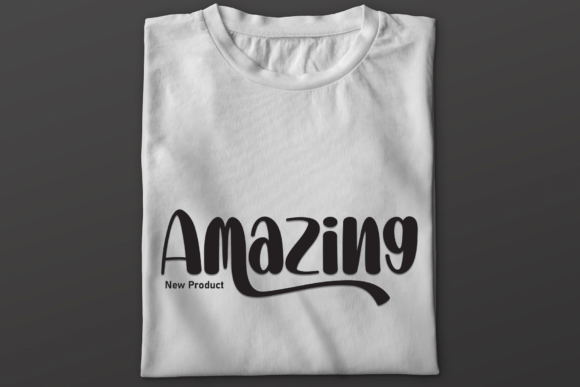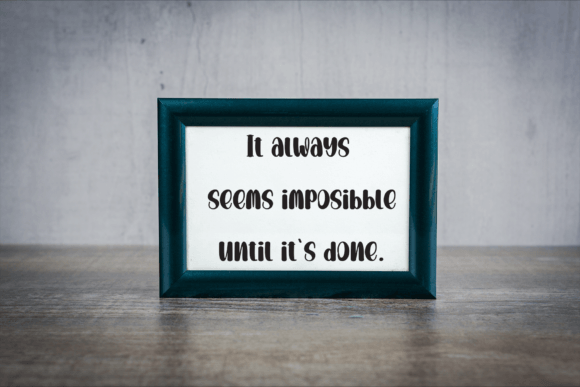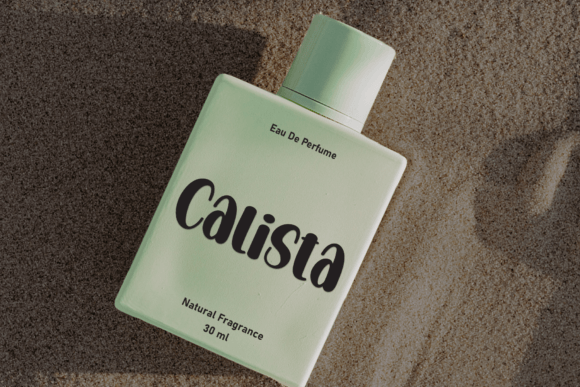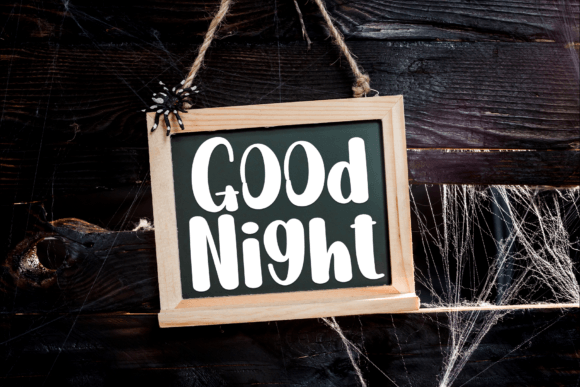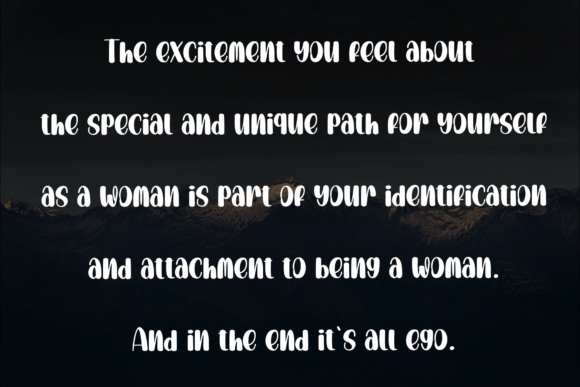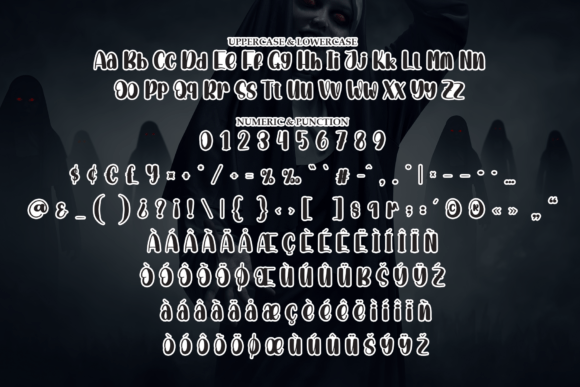
Unleash the Elegance: Exploring the Ghost Vampire Font
In the realm of typography, certain fonts stand out for their unique ability to evoke emotions and add a touch of sophistication to any creative project. The Ghost Vampire Font is one such marvel, designed to bring a romantic and exquisite feel to a wide array of applications. From greeting cards to headlines, and many more, this versatile and stylish font is set to become your go-to choice for projects that demand a bit of elegance and a lot of character.
The Essence of Ghost Vampire Font
Ghost Vampire is not just a font; it’s an experience. It combines the mystique of the night with the romance of the written word, making it perfect for designers and crafters looking to add a unique touch to their creations. Whether you’re working on a project that requires a spooky vibe or something more traditionally romantic, this font adapts seamlessly, ensuring your work stands out.
One of the key features of the Ghost Vampire Font is its incredible versatility. It’s designed to work beautifully across various platforms and applications. Here are a few ways you can incorporate it into your projects:
- Greeting Cards: Add a touch of elegance to your greeting cards, making them perfect for special occasions like weddings, anniversaries, or even Halloween.
- Headlines: Use it to create eye-catching headlines for your blog posts, articles, or advertising materials that demand attention and exude style.
- Social Media Graphics: Elevate your social media presence with stylish graphics that incorporate the Ghost Vampire Font, making your posts stand out in crowded feeds.
- Invitations and Event Materials: Create memorable invitations and event materials that set the tone for a sophisticated and unique experience.
Why Choose Ghost Vampire Font?
Choosing the right font for your project can be daunting, but here are a few reasons why Ghost Vampire should be at the top of your list:
- Romantic and Exquisite Feel: It adds a touch of romance and elegance to any project, making it perfect for a wide range of applications.
- High Readability: Despite its stylized nature, the Ghost Vampire Font maintains high readability, ensuring your message is conveyed clearly and effectively.
- Unique Aesthetic: It offers a unique aesthetic that can set your project apart from the rest, giving you a competitive edge.
Tips for Using Ghost Vampire Font
To make the most out of the Ghost Vampire Font, consider the following tips:
- Pair it Wisely: Experiment with font pairings to find the perfect complement to Ghost Vampire. A simple, sans-serif font can often provide a nice contrast.
- Adjust Size and Color: Don’t be afraid to play with the size and color of the font to match the mood and theme of your project.
- Use it Sparingly: While it’s tempting to use such a beautiful font throughout your project, using it sparingly can often have a greater impact, especially for headings and key messages.
The Ghost Vampire Font is a powerful tool for designers and crafters looking to add a touch of elegance and uniqueness to their projects. Its versatility, combined with its romantic and exquisite feel, makes it an excellent choice for a wide spectrum of applications. By incorporating this stylish font into your creative projects, you’re sure to leave a lasting impression on your audience. So, why wait? Explore the possibilities of the Ghost Vampire Font today and elevate your designs to a whole new level.